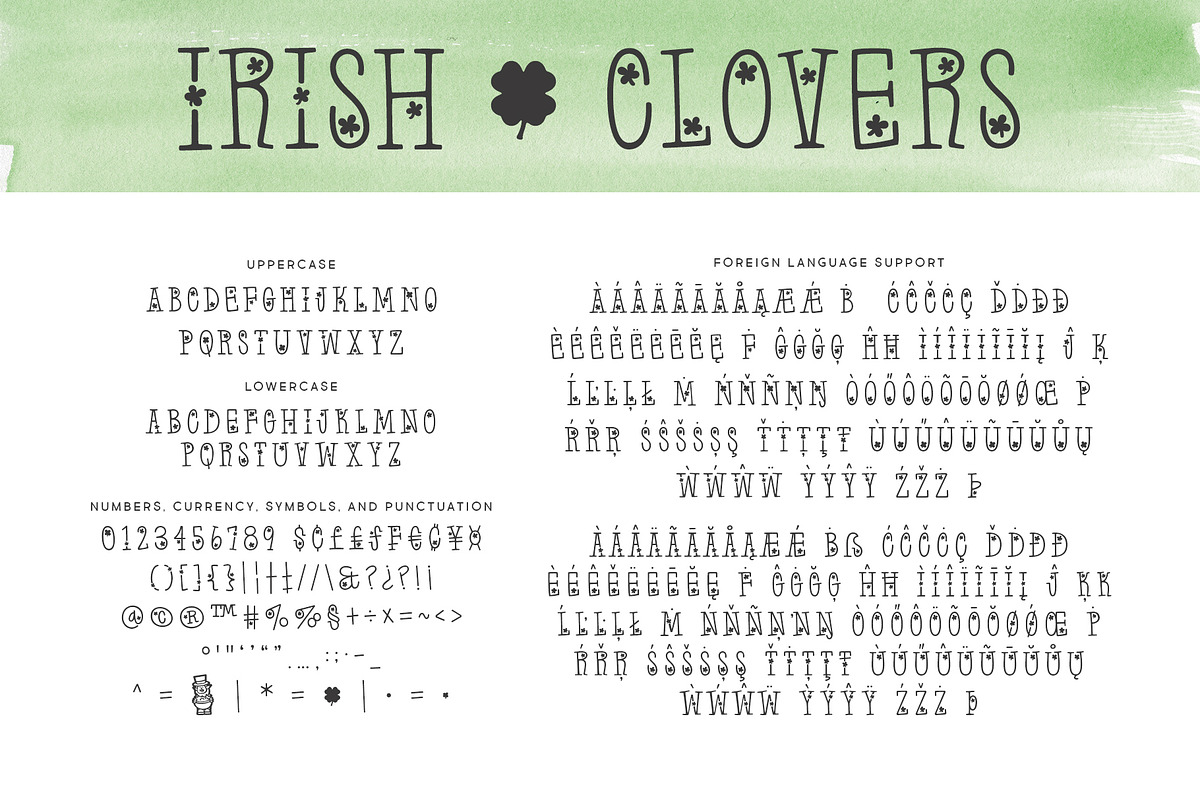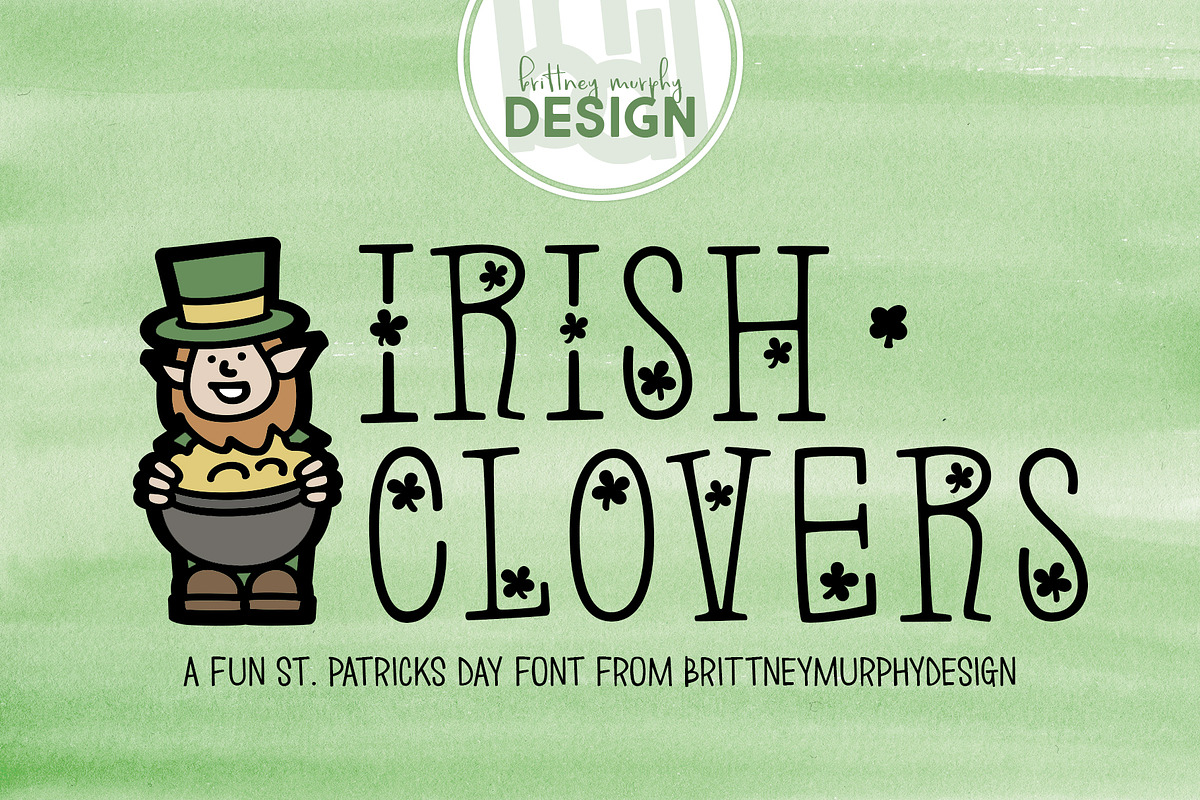
Irish Clovers
A fun all-caps St. Patrick's Day font! Use the circumflex ^ for the leprechaun, the asterisk * for the big clover, and the bullet • for the small clover.
Features support for most Latin-based languages and a full set of punctuation and numbers.